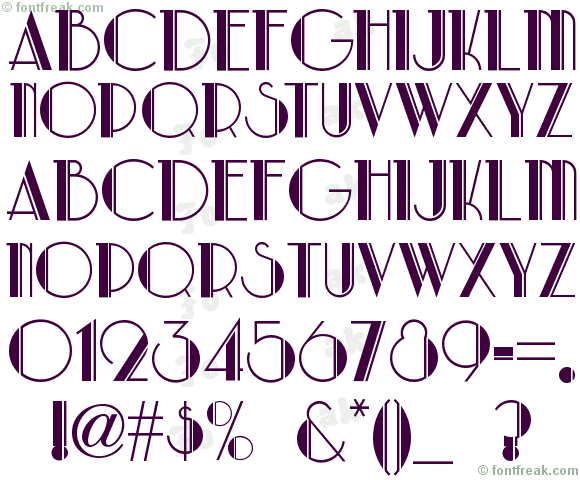
Park Lane NF
About Park Lane NF
Park Lane NF is a striking display font designed by Nick Curtis that captures attention with its unique character and style. This font falls into the decorative category, making it ideal for projects that require a touch of elegance and flair. The visual characteristics of Park Lane NF include a bold stroke weight coupled with a moderate contrast, giving it a commanding presence while still being readable. The letters are spaced thoughtfully, which enhances legibility and allows for a pleasing visual flow. Decorative elements such as sharp angles and distinctive serifs add to its artistic appeal, making it suitable for various design contexts.
This font is particularly well-suited for wedding invitations, where its elegant style can beautifully complement the romantic theme. It also works wonderfully for movie posters, providing a captivating headline that draws the eye. Restaurant menus can benefit from Park Lane NF’s charm, lending a sophisticated touch that enhances the dining experience. Additionally, small business owners looking for a unique branding element will find this font a perfect fit, as it can help convey their brand's personality effectively.
Targeted towards graphic designers, content creators, and small business owners, Park Lane NF offers versatility and style. Whether crafting digital content or print materials, this font can elevate the overall aesthetic.
What sets Park Lane NF apart is its ability to blend sophistication with approachability, making it an excellent choice for both formal and creative designs. Its availability as a freeware option makes the Park Lane NF font free download a practical choice for those looking to enhance their work without compromising on quality. This font is not just a typeface; it’s a tool that can transform your projects into visually stunning creations.